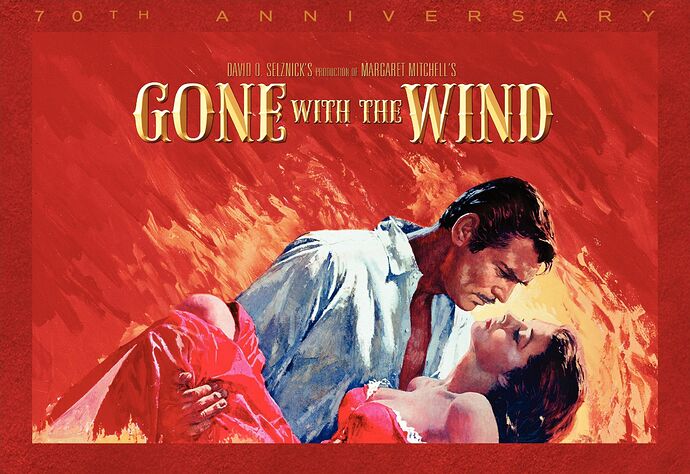
Trying to figure out what typeface was used for this Classic Movie Poster Title.
I didn’t find the exact font, but during my search I found some alternatives, maybe they help:
It looks like IFC Rail Road with lots of 3-D and lighting effects.